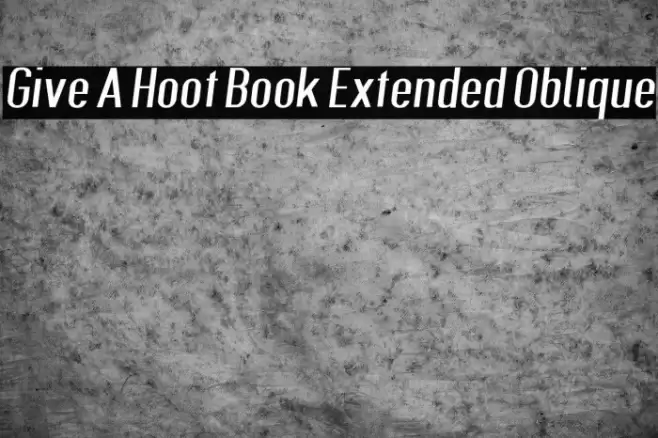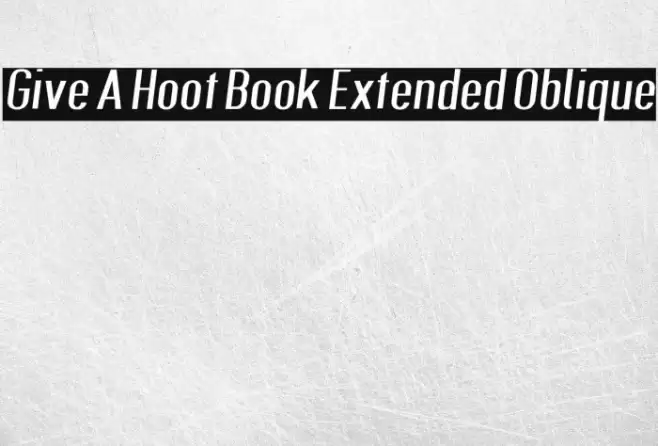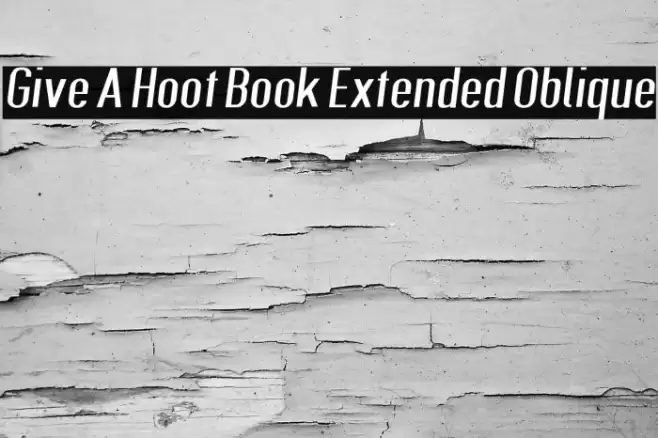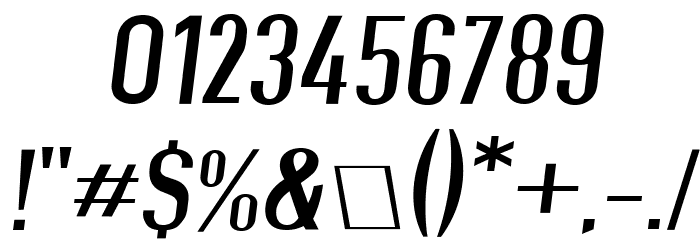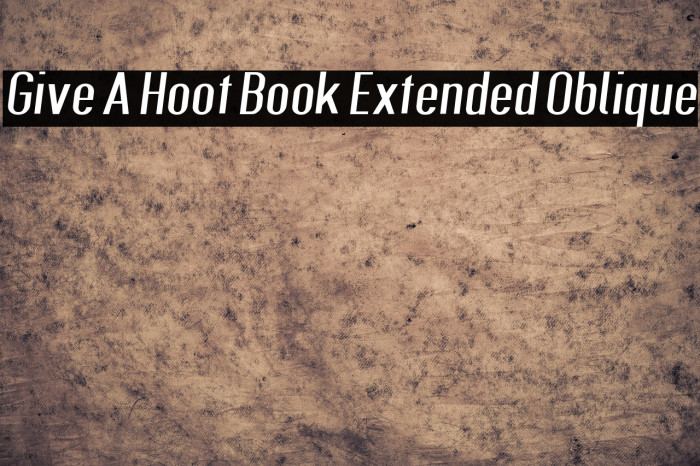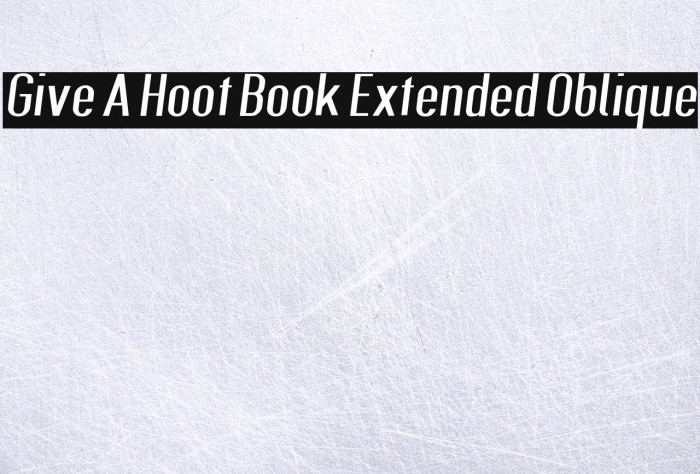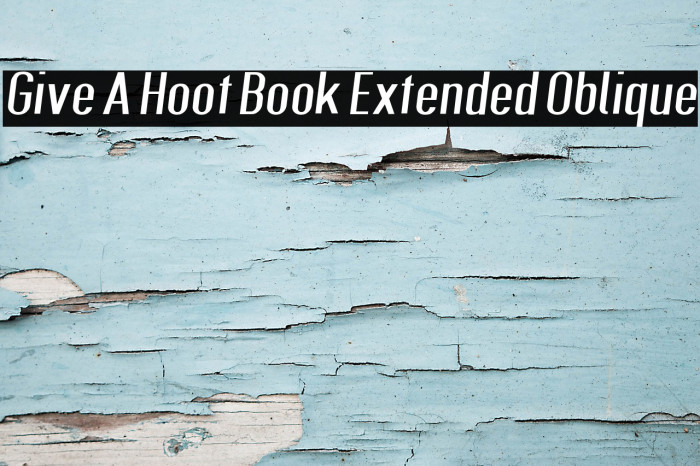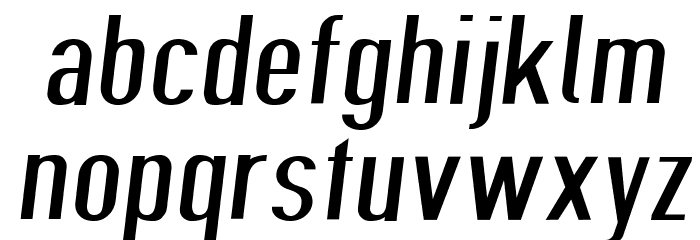
This font features a sleek and modern design with an oblique style, giving it a dynamic and forward-leaning appearance. The characters are elongated and slightly condensed, providing a sense of motion and elegance. The uppercase letters are tall and commanding, while the lowercase letters maintain a consistent flow, enhancing readability. The numerals are clear and distinct, making them suitable for various applications. Special characters are well-integrated, maintaining the overall aesthetic. The font's clean lines and subtle curves make it versatile for both digital and print media.
A modern, oblique font with elongated, condensed characters and a dynamic style from Uncategorized fonts.
- Proposed Projects: Ideal for branding, advertising, headlines, and editorial design where a modern and sleek appearance is desired.
- Use Case: Headlines, Logos, Advertising